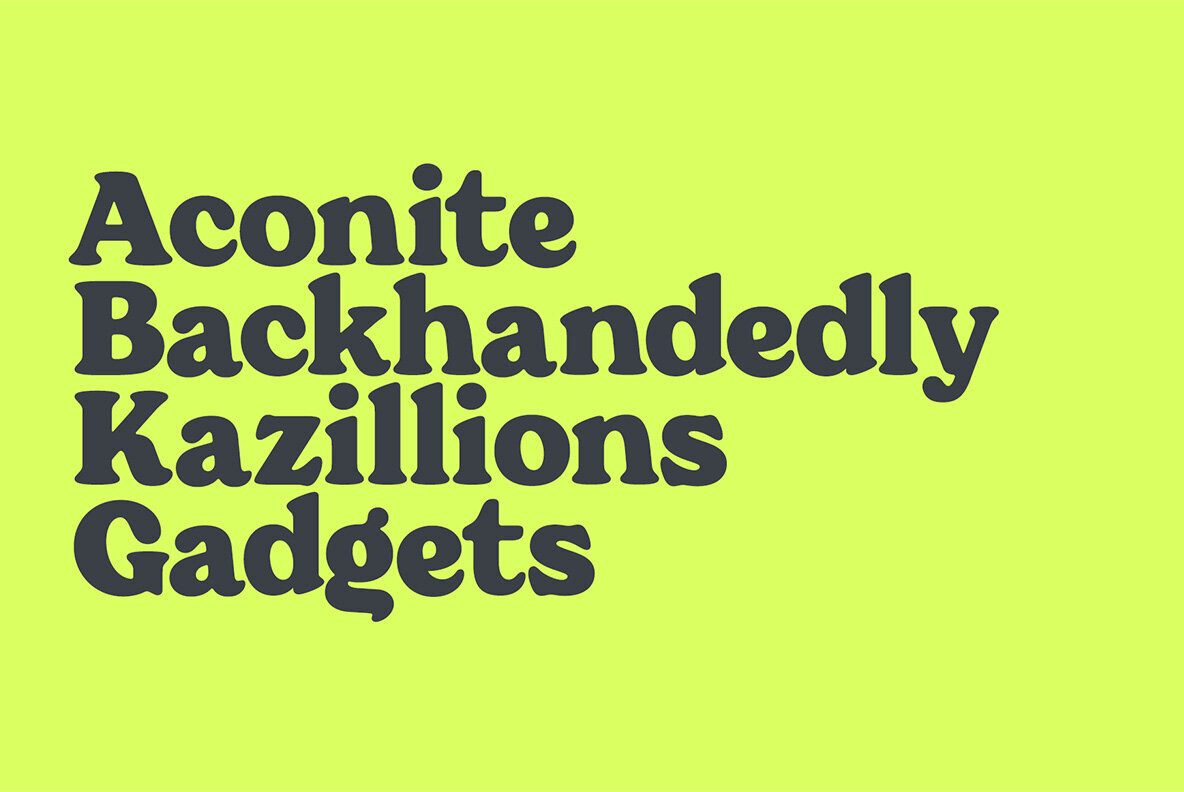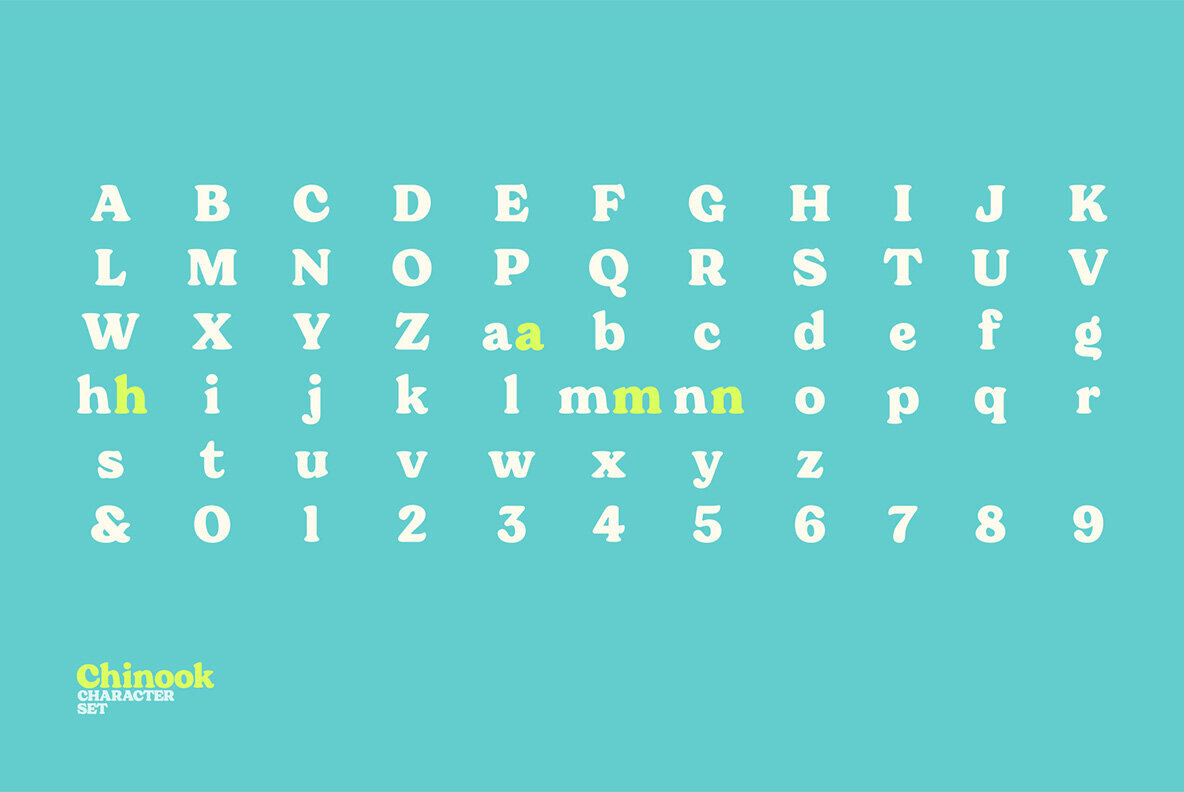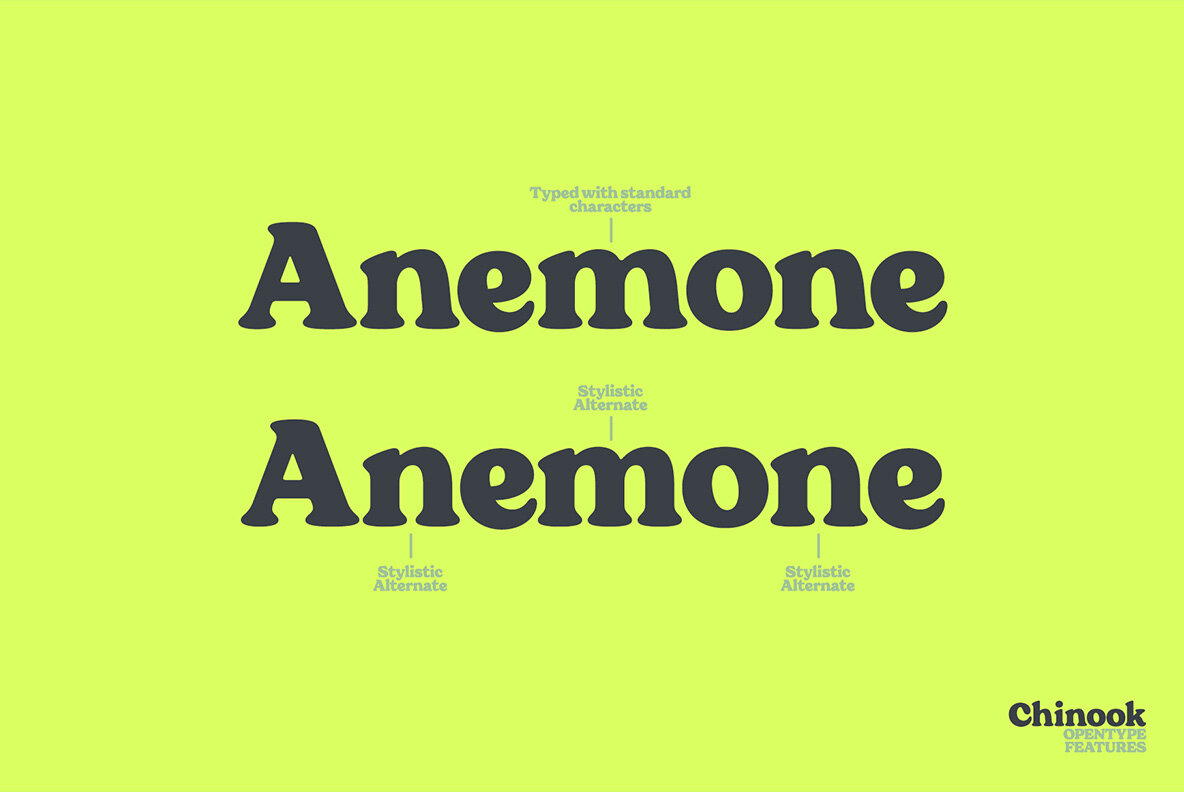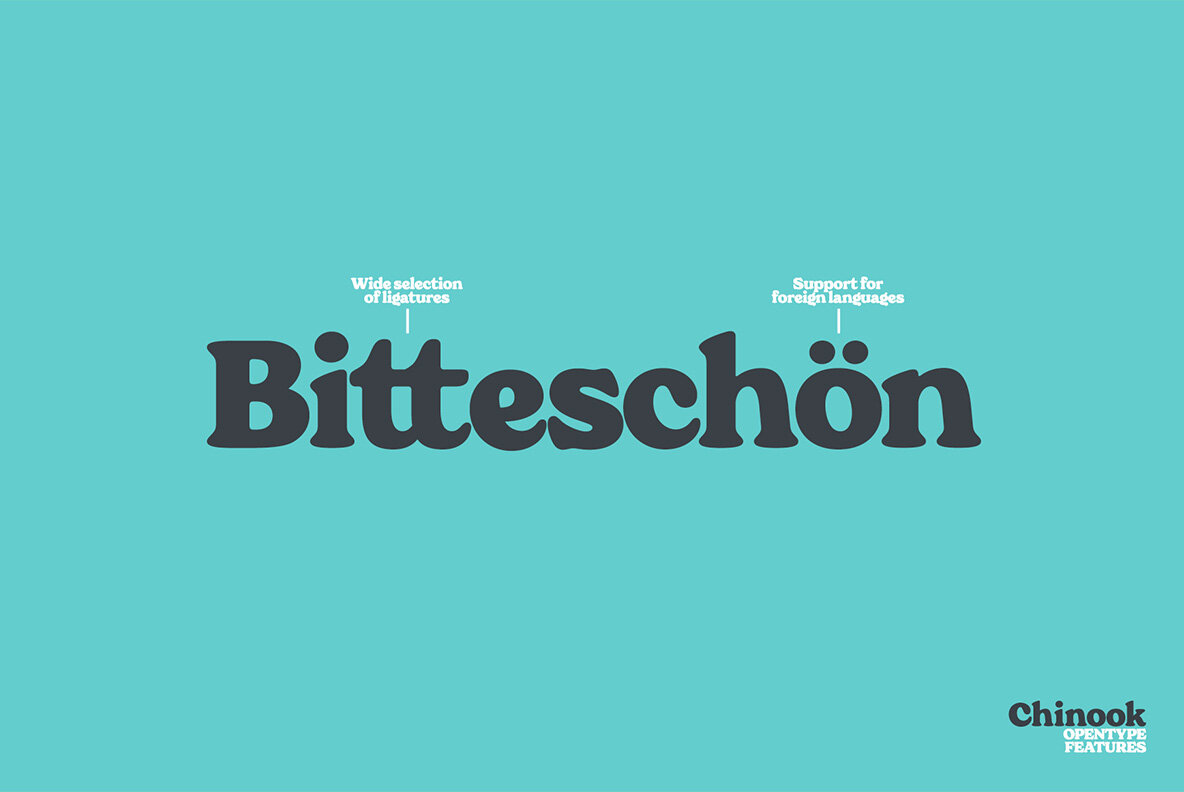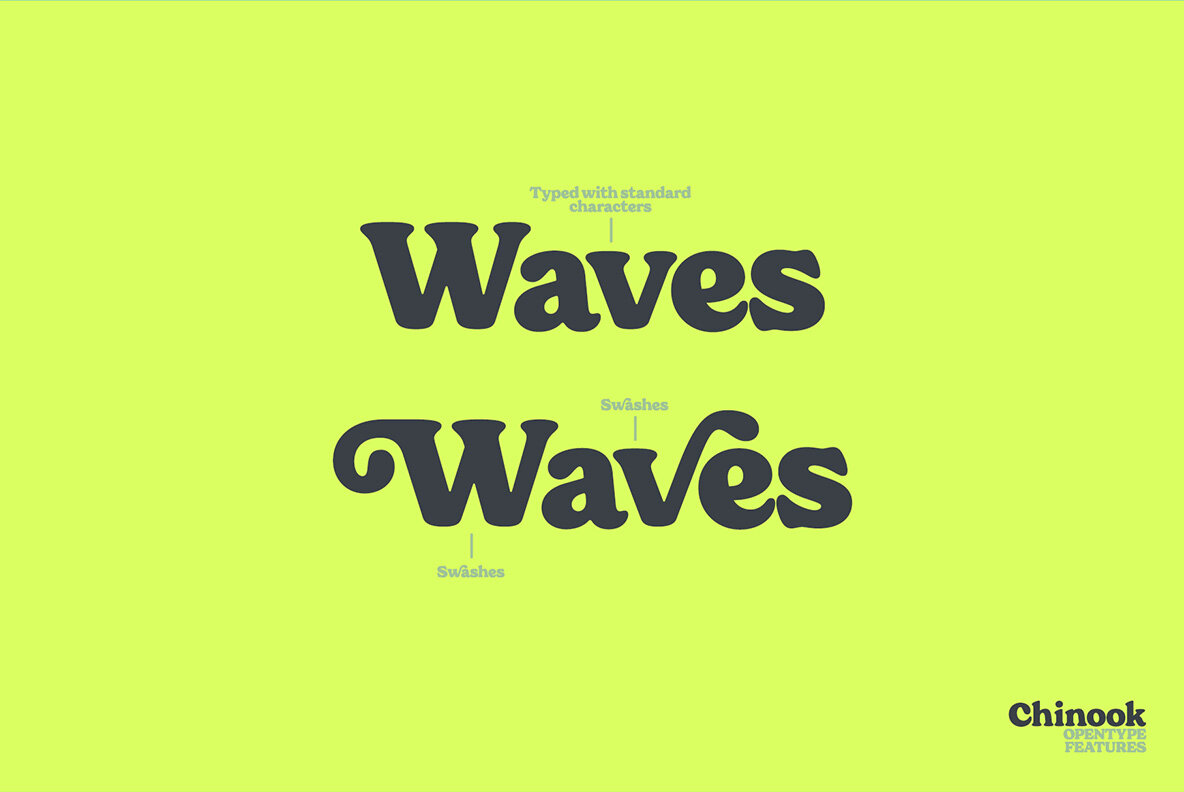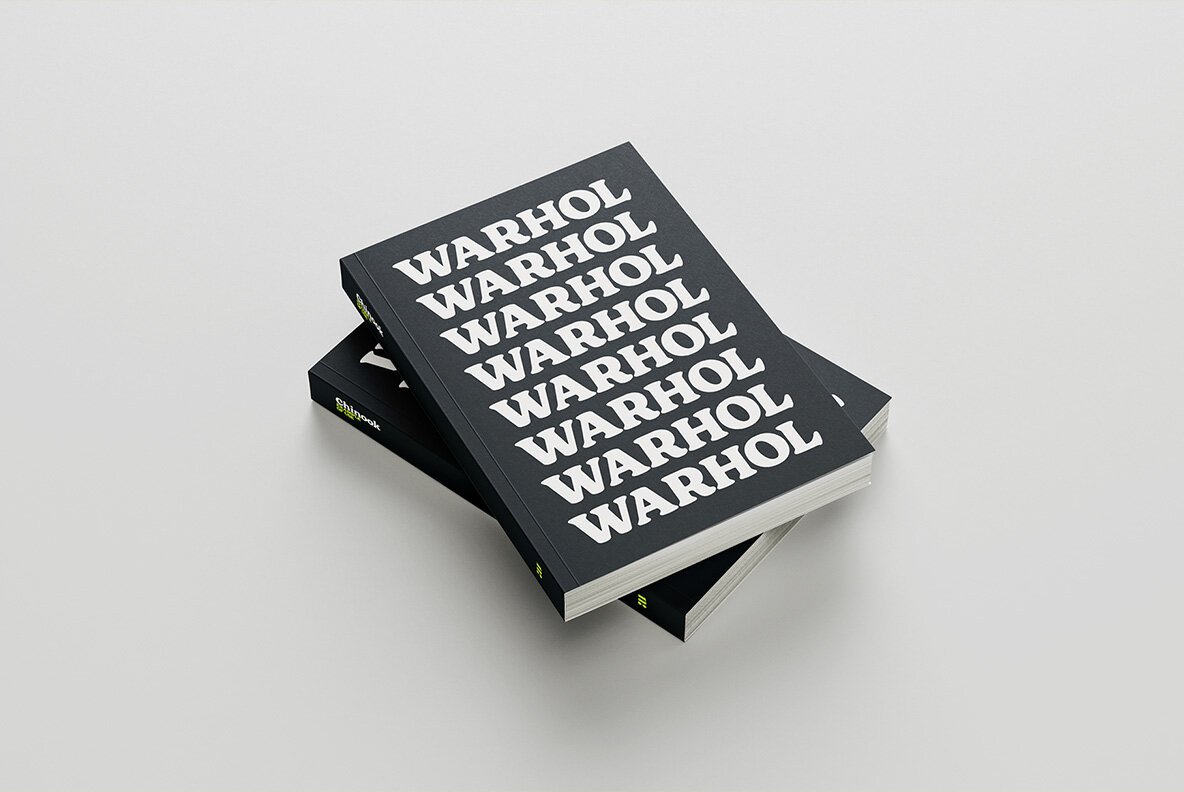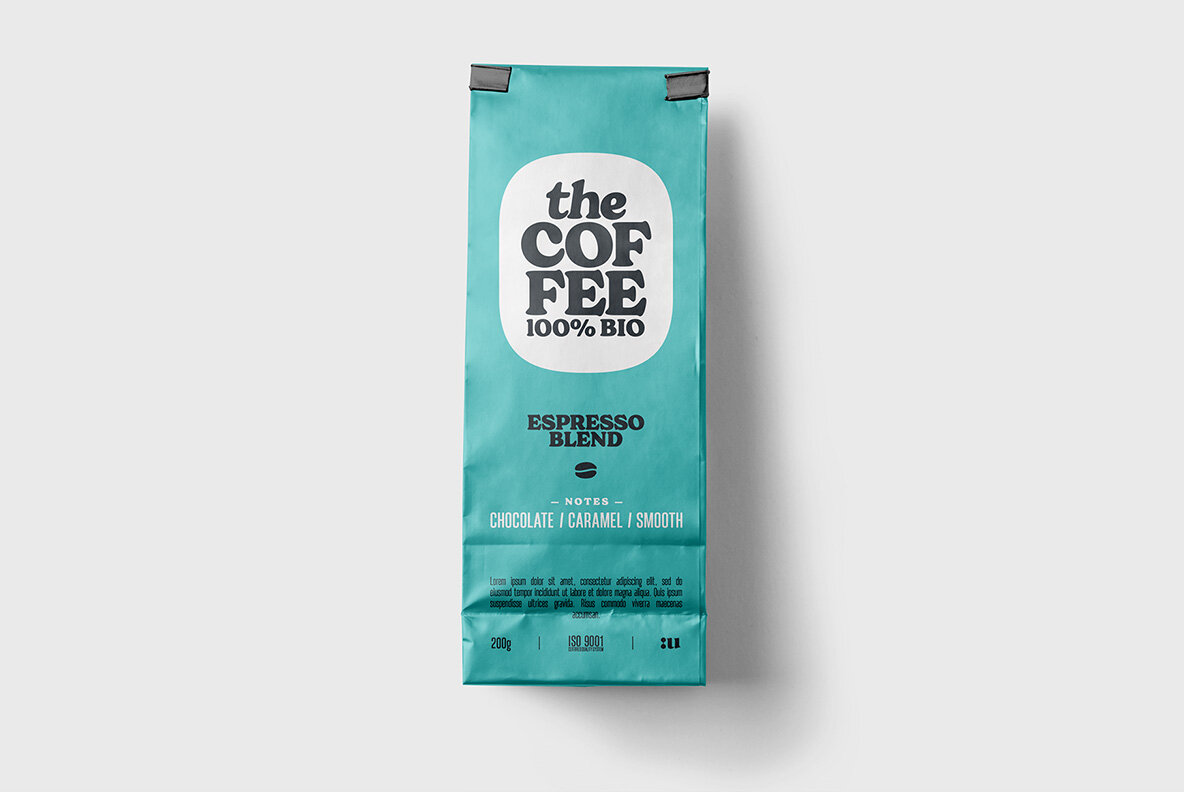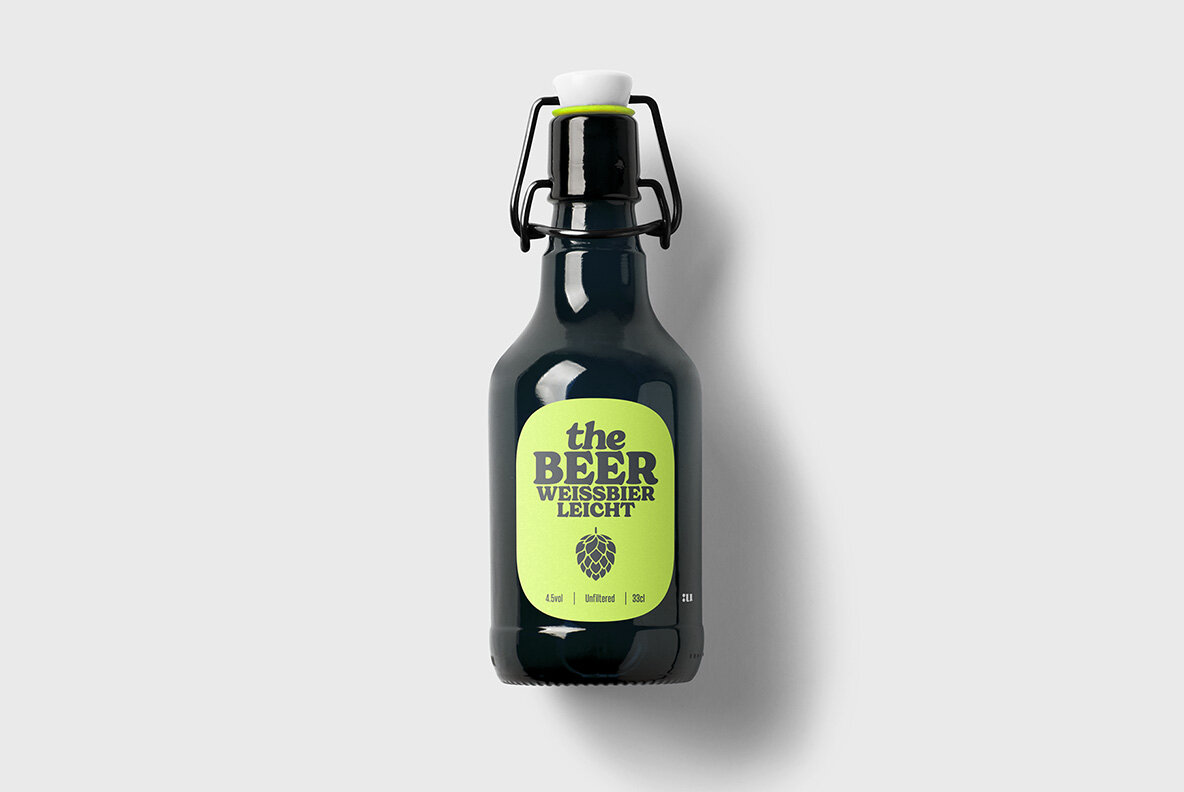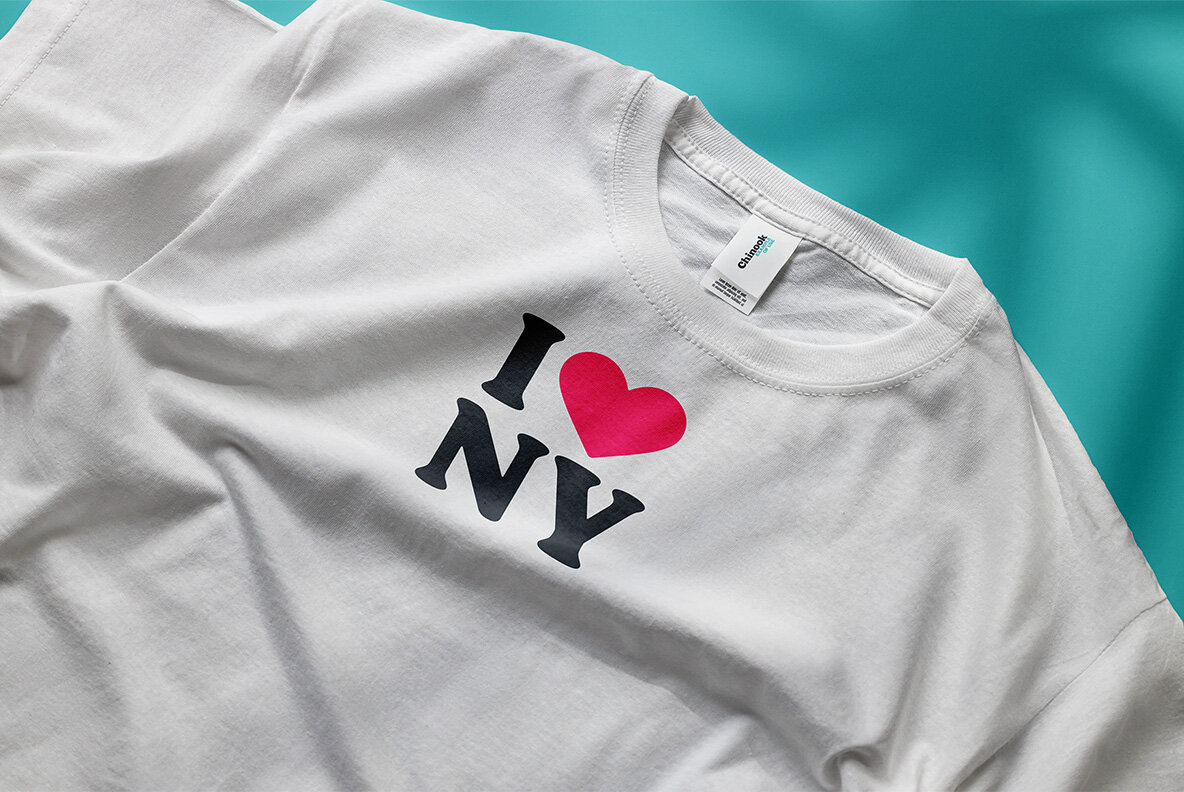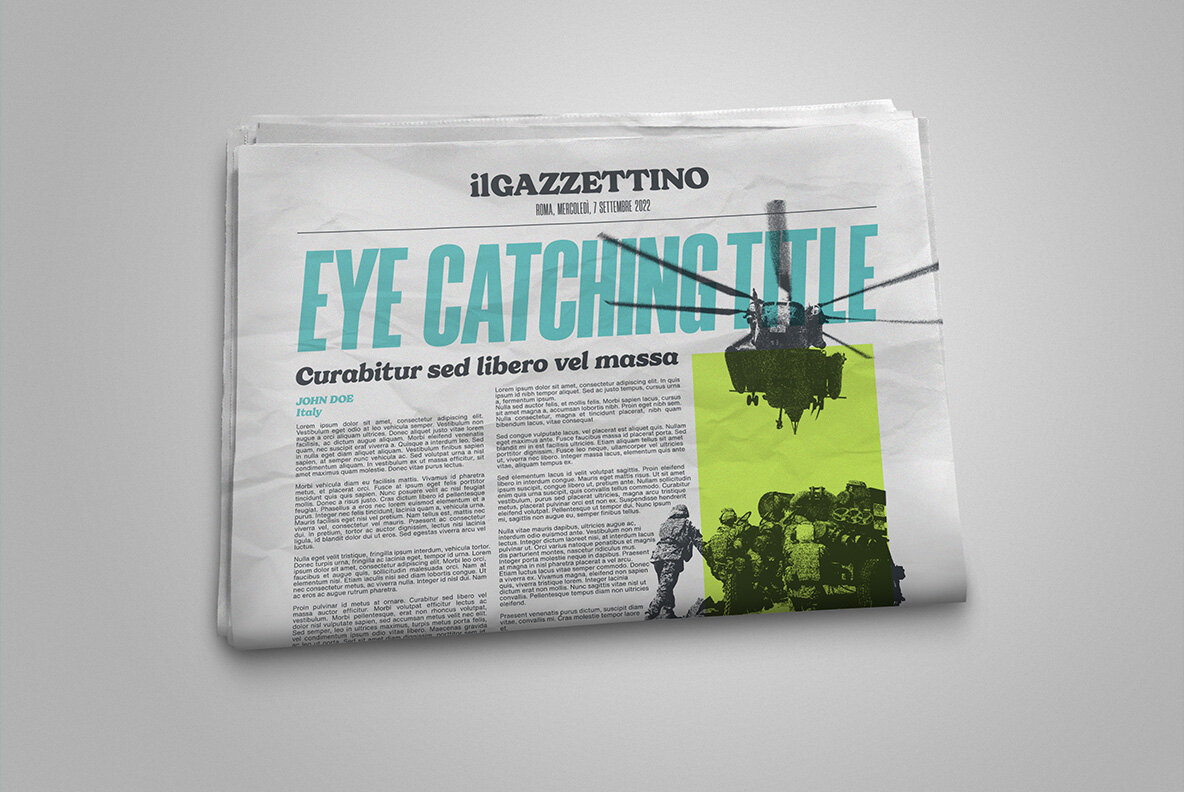
Chinook Font
Chinook has been designed as an homage to the iconic chunky look of the Italian movie titling from the 70s and 80s. Despite its vintage flair, our sturdy display font is perfectly adaptable for any contemporary context with its balanced and soft text typesetting.
This project is obviously influenced by the everlasting classic "Cooper Black", but includes more modern letter shapes, with rounded serifs and a fluffy overall appearance.
Chinook, includes a customized italic set, features an extended charset covering several languages based on the Latin Alphabet, and sports a complete set of Open type features. It's equipped with swashes, alternates as well as discretionary ligatures, old-style figures, subscript and superscript numerals, and even more special glyphs.
The heavy appearance makes this font ideal for high-impact design, such as headlines, titling, branding, and logotype.
- Multi-language support (Central, Eastern, Western European languages)
- OpenType Features (Superscript and Subscript Numerals, Fractions, Oldstyle figures, Stylistic Alternates, Discretionary Ligatures, Swashes)